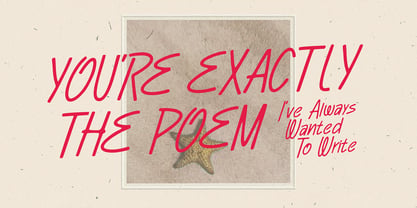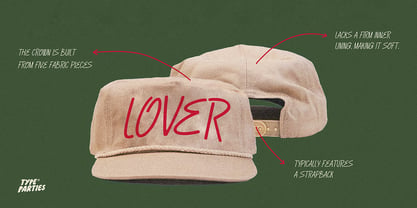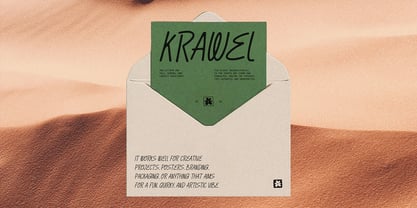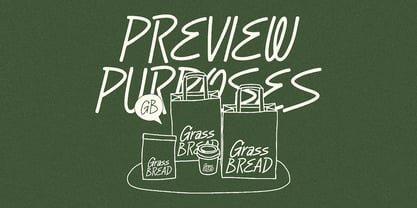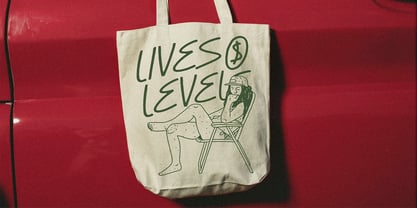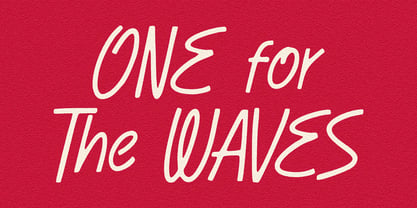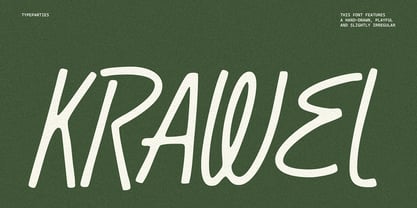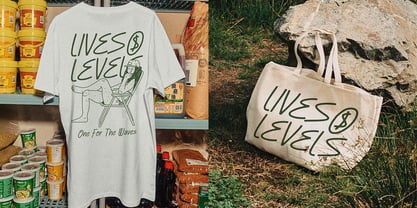
ATP Krawel
by Typeparties
The ATP Krawel Font Family was designed by Thufail Al ghifary and published by Typeparties. ATP Krawel contains 1 styles. More about this family
This font features a hand-drawn, playful, and slightly irregular style that captures attention with its tall and narrow letters. The loosely structured design provides an organic flow, while each stroke conveys a casual and spontaneous feel, resulting in a friendly and approachable personality. The subtle inconsistencies in letter shapes add charm and character, making the typeface feel both authentic and handcrafted. Ideal for creative projects, this font excels in applications such as posters, branding, packaging, and any endeavor that seeks to evoke a fun, quirky, and artistic vibe. The inclusion of extra decorative elements, such as flower illustrations, further enhances its whimsical and cheerful mood, making it a perfect choice for designs that aim to stand out and inspire creativity.
Designers: Thufail Al ghifary
Foundry: Typeparties